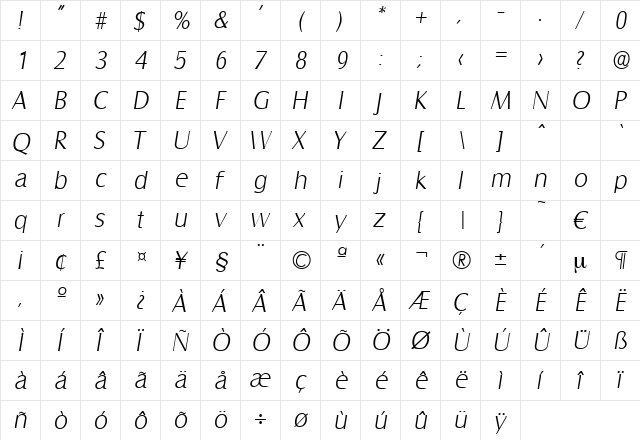
Salzburg-XlightIta Regular Font Preview
Salzburg-XlightIta Regular
Design Context for Salzburg-XlightIta Typeface
Salzburg-XlightIta is a composed and adaptable typeface that performs quietly and consistently across a wide range of design contexts. The delicate stroke weight brings airiness and refinement to layouts.